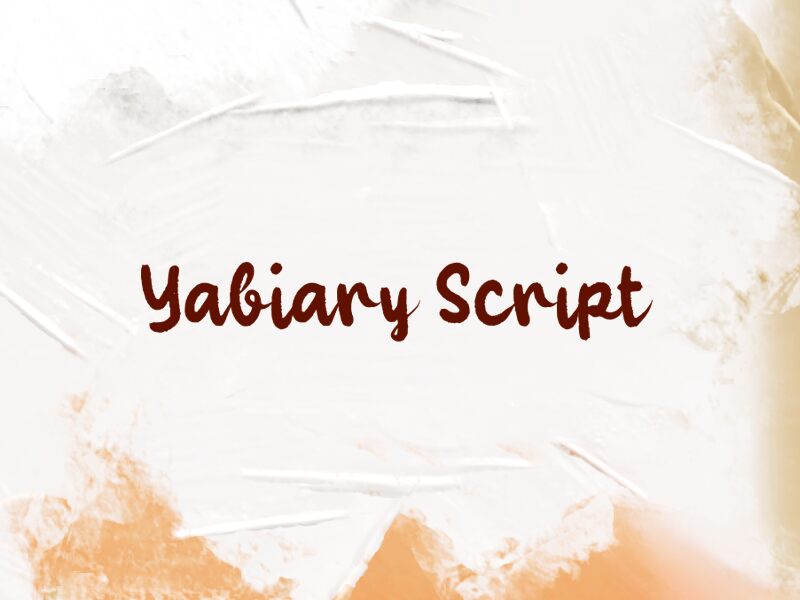
Yabiary Script
Yabiary Script font by wepfont.com is a free brush script typeface that captures the look of inky, hand-painted letters on textured paper. Its strokes feel lively and a little rough at the edges, like a marker that’s just starting to dry, giving your words warmth and personality without turning messy. The letters connect with an easy rhythm, so headlines read as a confident, flowing signature rather than stiff digital type.
Using Yabiary Script, you can add a handcrafted spark to logos, product packaging, quote graphics, invitations, social media posts, and merch designs. This free font shines at larger sizes where its grainy texture and bold curves can really show. Pair it with a clean, neutral sans serif for body text to keep layouts readable while letting Yabiary Script handle the expressive moments.